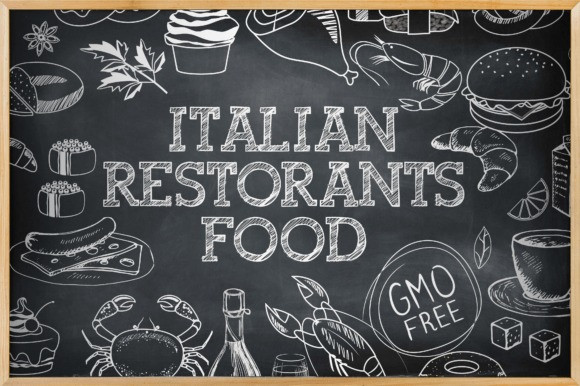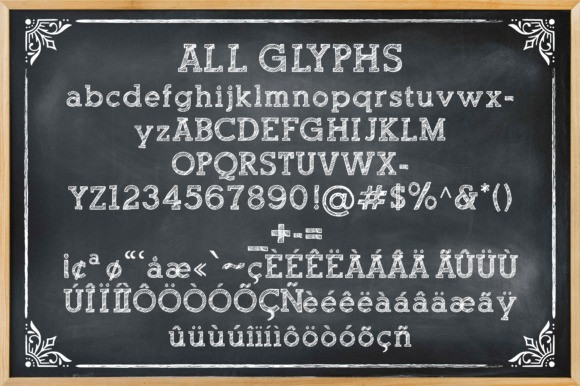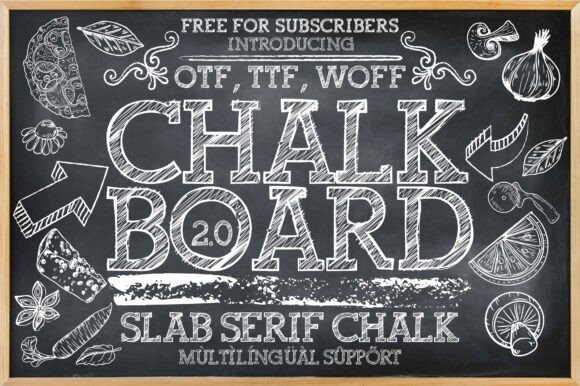
CHALKBOARD 2.0 FONT
Chalkboard 2.0 font is a stylish and versatile slab serif typeface that combines the bold, structured appeal of slab serifs with the playful, hand-drawn chalk effect. Perfect for a wide variety of design contexts, this font brings a charming, rustic feel to any project, from back-to-school designs to Italian restaurant menus, cozy cafés, and beyond.
Elevate your next design with the charming, versatile appeal of Chalkboard 2.0 —perfect for everything from educational materials to food menus, branding, and more!